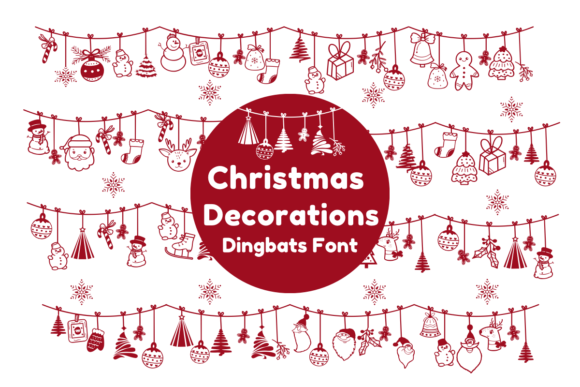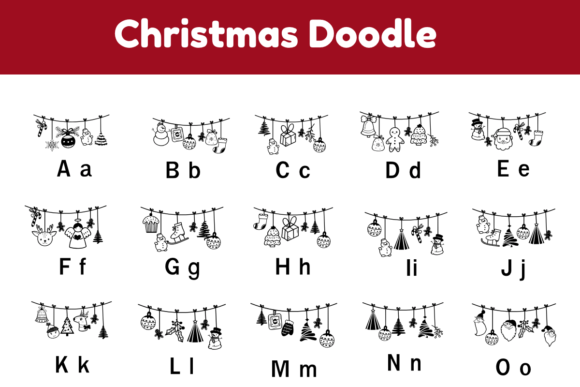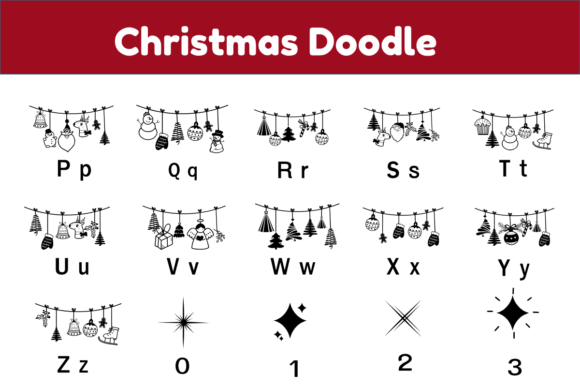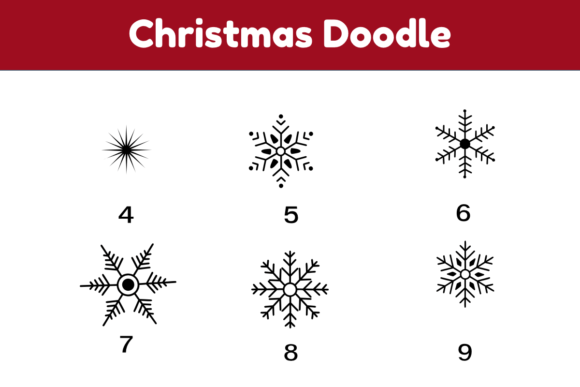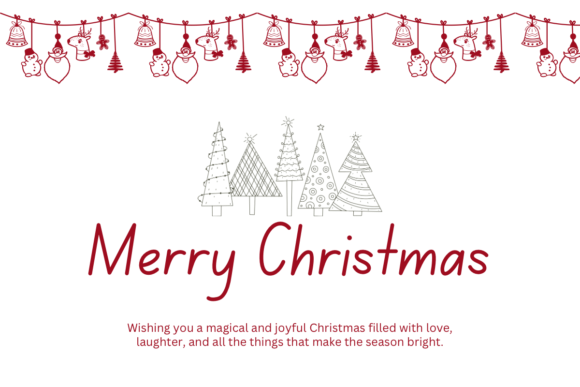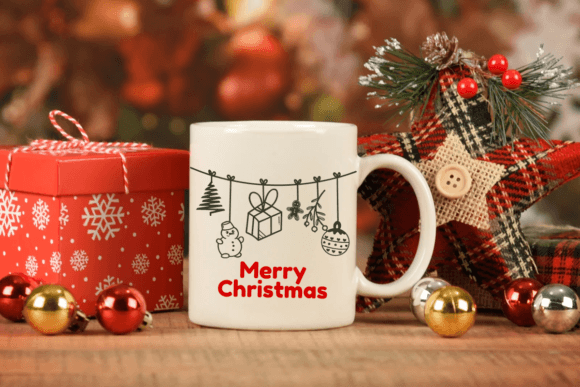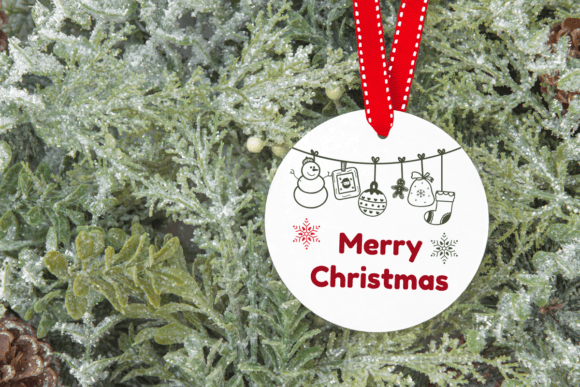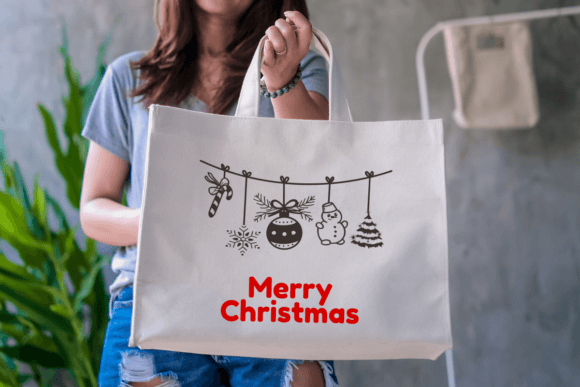
Christmas Decorations Font
Christmas Decorations is a dingbats font with a festive theme. This font can enhance your creative projects such as wedding invitations, DIY, crafts, decorations, logos, and many other creative ideas.